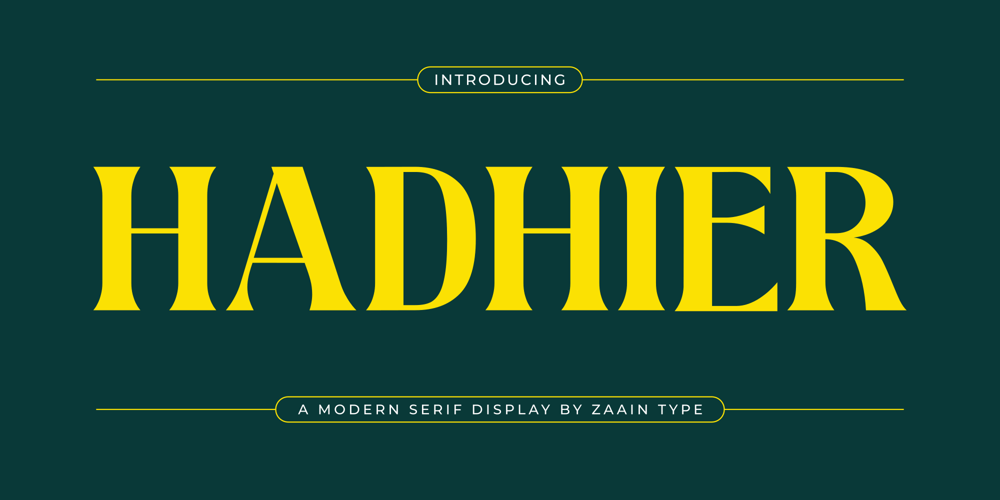
Hadhier
Hadhier font
Hadhier Font Family was designed by Ju Naen and published by Zaain Type. Hadhier contains 1 styles and family package options. Hadhier is a serif font that exudes elegance and a classic impression. With its refined design and balanced proportions, Hadhier is perfect for various purposes, from editorial design and formal invitations to luxurious branding